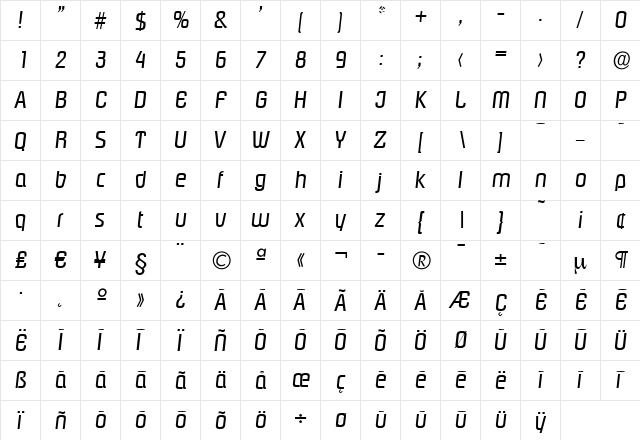
MaxBecker Italic
Design Context for MaxBecker Typeface
MaxBecker takes a measured approach to typography — its balanced proportions and neutral character make it a reliable workhorse for both digital and print work. Its italic angle brings a sense of urgency and motion to the letterforms.